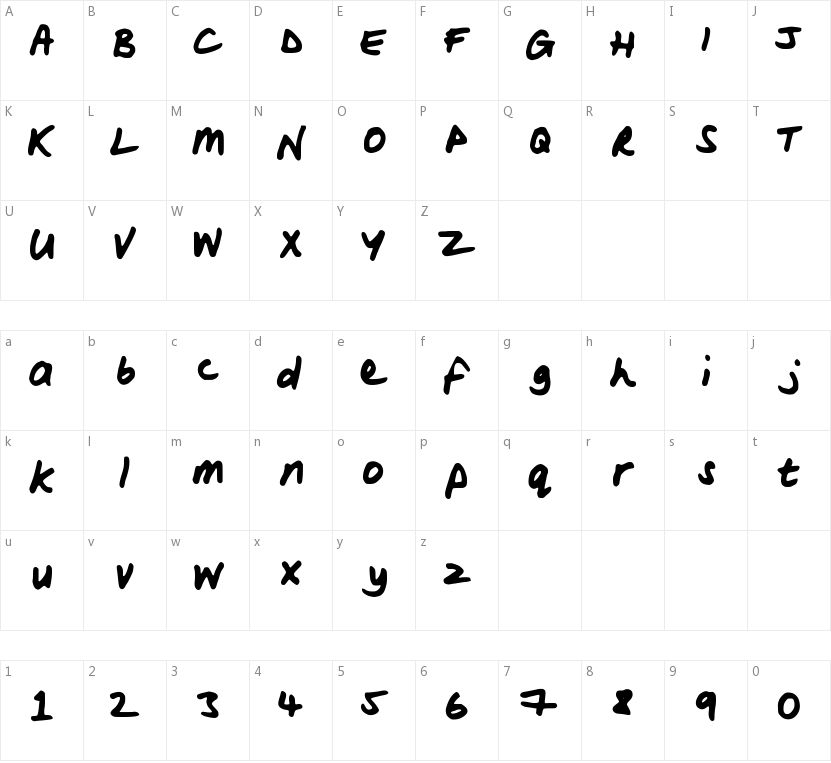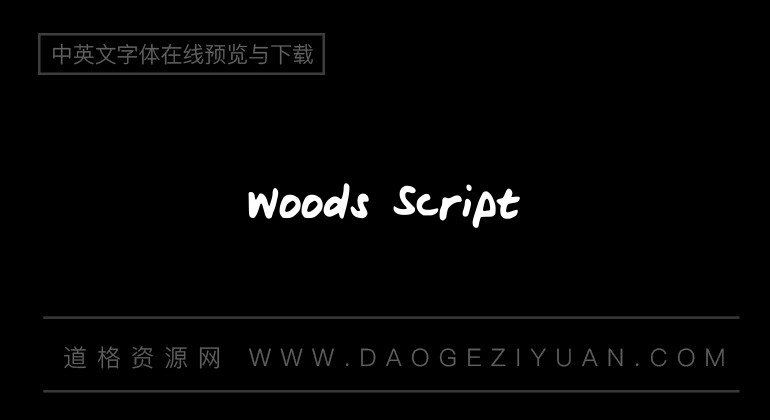
Woods Script
Woods Script is a beautiful, elegant handwriting font inspired by handwritten letters and journals. The creators of this font aimed to create a typeface that expresses one's character and emotions, with a unique design that evokes nature, comfort and warmth. The strokes and lines of the Woods Script font are very smooth, and the spacing between the letters is also very reasonable, making this font very suitable for designing posters, business cards, emails, etc. Overall, Woods Script font is a very personal and emotional font, if you want to express your own unique style and emotion, it will be a good choice.
Woods Script is a very good handwriting art font, with a good visual sense, suitable for cultural propaganda design, commercial brand advertising and product packaging design and personalized text typesetting and other more scenes.